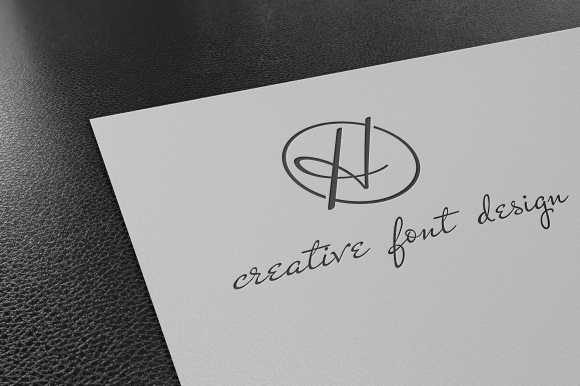
Halmahera Font
About Halmahera Font
The Halmahera is an original impression of a handmade brush font. It can be used for menus, fashion, labels, invitations, and much more!